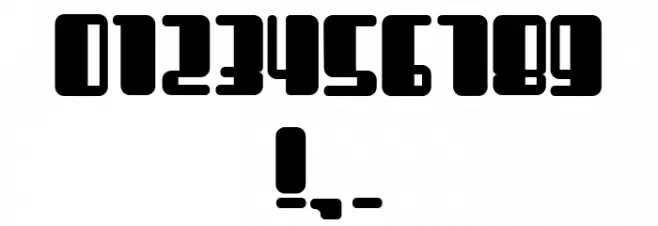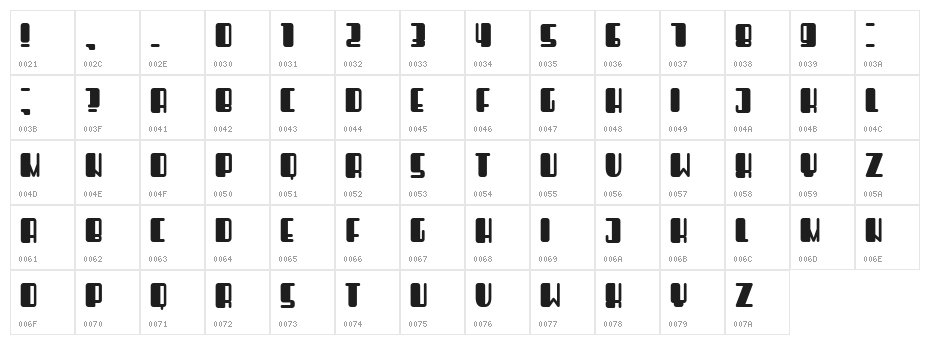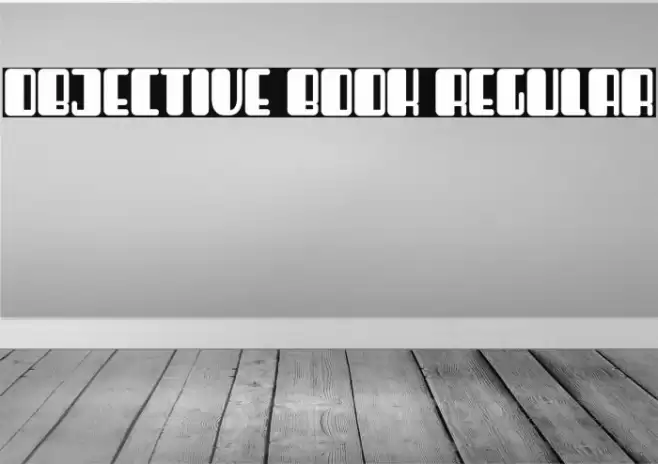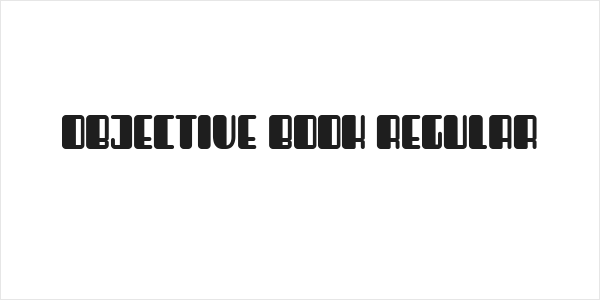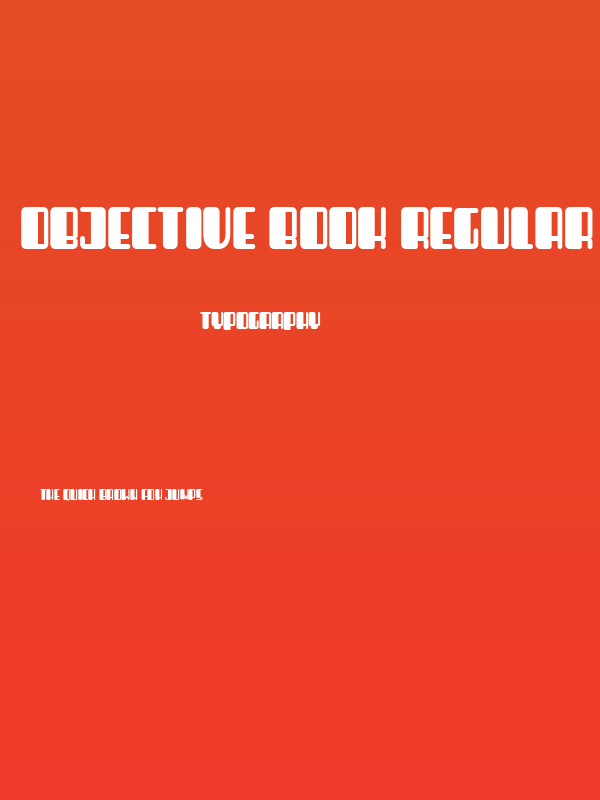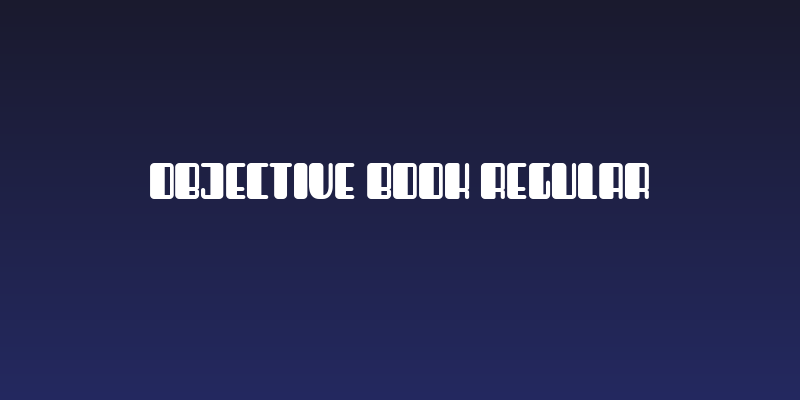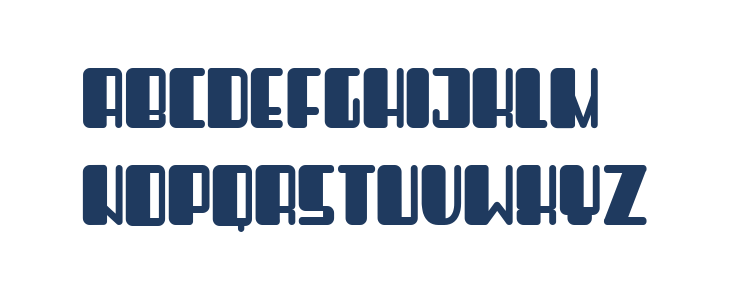
Objective Book Regular Font
Objective Book Regular Description
This font features a bold, geometric style with a strong presence. The characters are constructed with thick, uniform strokes, creating a blocky and robust appearance. The design is modern and somewhat futuristic, with a distinctive square shape that gives it a unique and memorable look. The uppercase and lowercase letters maintain a consistent height, contributing to a cohesive visual flow. The numerals and special characters align seamlessly with the overall aesthetic, making it suitable for attention-grabbing headlines and impactful designs.